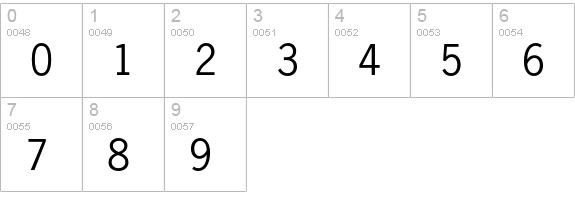
News Gothic Std Medium Font Details
News Gothic Std Medium is a balanced, medium-weight variant in the News typeface family \xE2\x80\x94 well suited to sub-headlines, navigation, and balanced editorial work.
News Gothic Std Medium is a versatile and timeless font that exudes clarity and professionalism. With its clean lines and balanced proportions, this font is perfect for a wide range of design projects, from editorials to branding and beyond. The medium weight of News Gothic adds a touch of modern elegance to any text, making it a popular choice for both print and digital applications. And the best part? News Gothic Std Medium font is available for free download at FontsMarket.com. Simply visit the website to access this sophisticated typeface and elevate your designs with its sophisticated flair. Don't miss out on the opportunity to enhance your projects with the sleek and polished aesthetic of News Gothic Std Medium font – download it for free today!